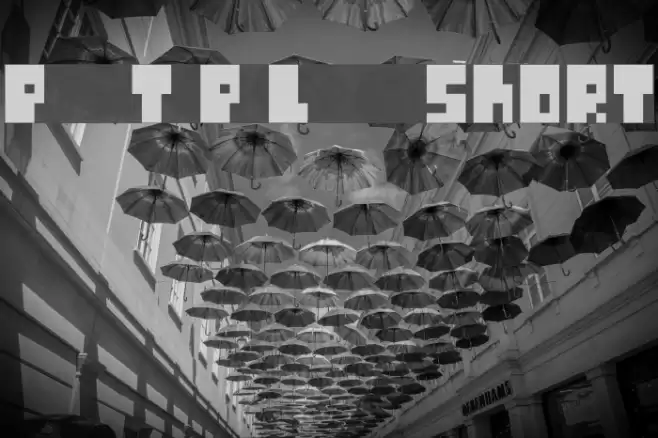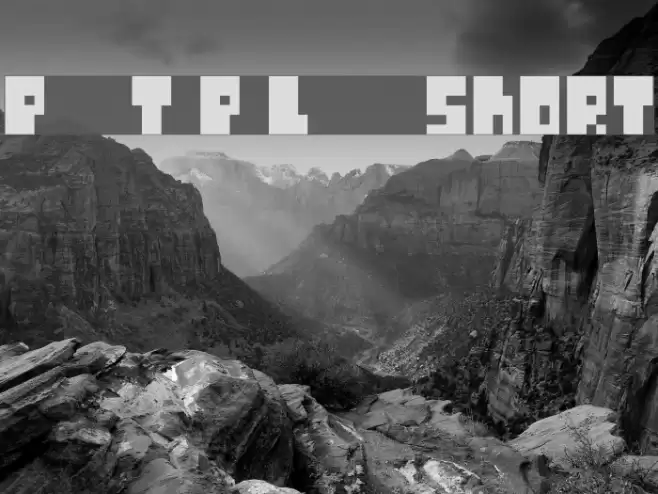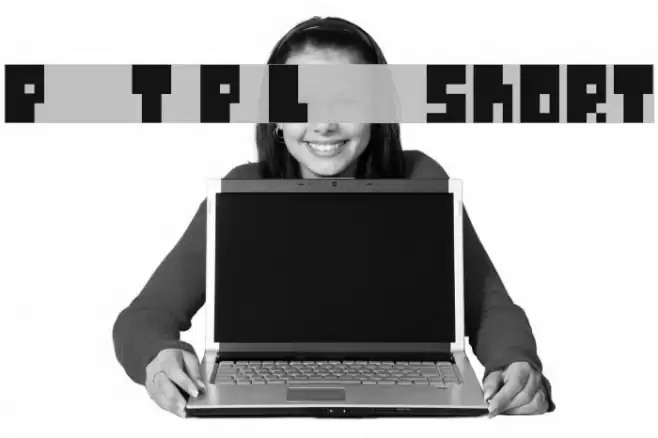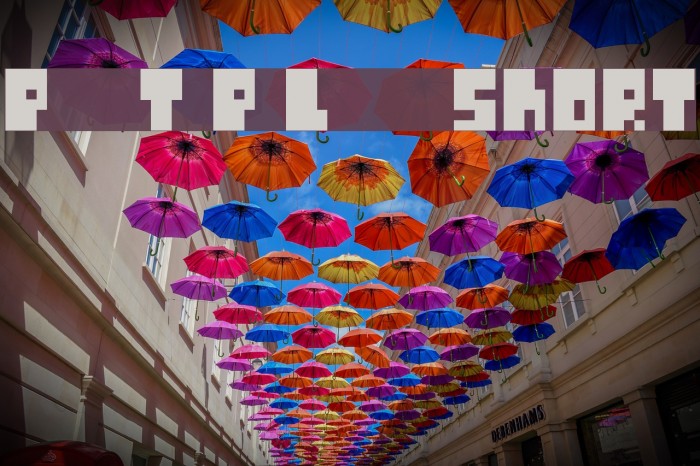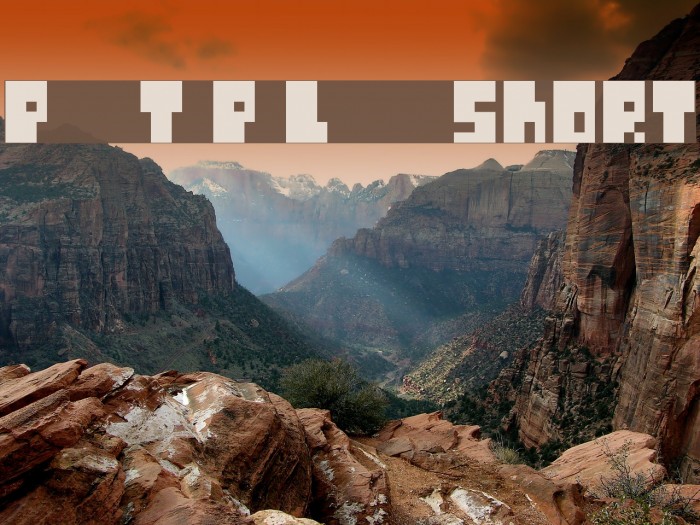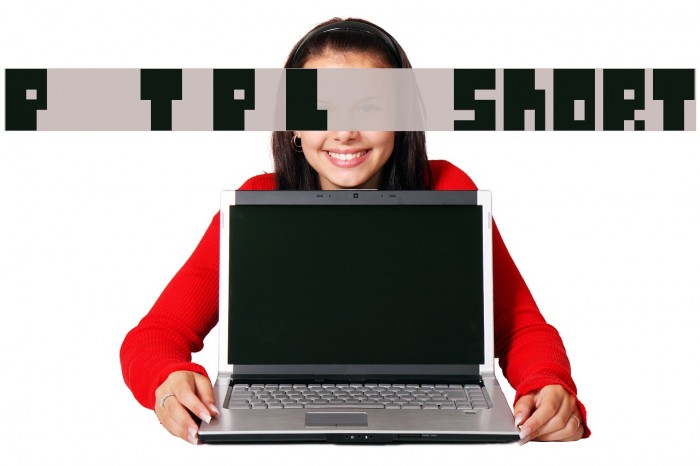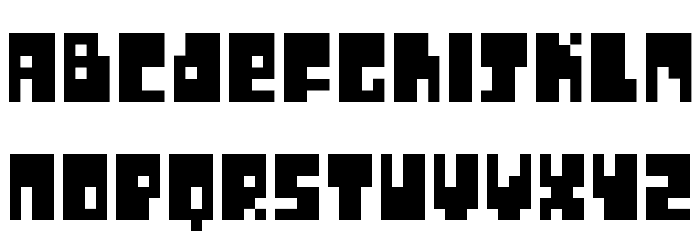
Petyka - The Physics Lab___SHORT Font
Petyka - The Physics Lab___SHORT Description
This font features a bold, geometric design with a pixelated, block-like appearance. Each character is constructed with sharp, angular lines, giving it a distinctly digital and retro aesthetic reminiscent of early video game graphics. The uppercase and lowercase letters maintain a consistent height, contributing to a uniform look across the typeface. The numbers and special characters are designed in the same style, ensuring cohesion throughout. The font's thick strokes and lack of curves make it highly legible at various sizes, though it is best suited for larger displays where its unique style can be fully appreciated.
A bold, geometric, pixelated font with a retro digital aesthetic from Uncategorized fonts.
- Proposed Projects: Ideal for video game design, tech-themed posters, digital art projects, and retro-style branding.
- Overall Style: Retro, Digital